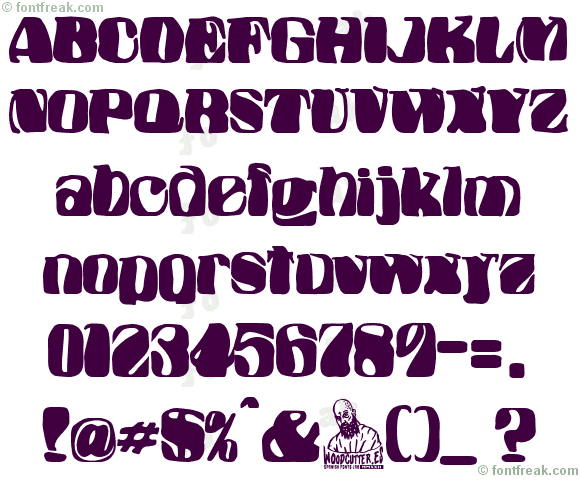
Coordenadas Polares
Coordenadas Polares is a captivating display font designed by woodcutter Manero, characterized by its unique blend of whimsy and boldness. This decorative font features an organic, hand-crafted aesthetic that sets it apart from traditional typefaces. Its playful letterforms are characterized by varying stroke weights, which add a sense of dynamism and movement. The rounded edges and uneven spacing give it a warm, approachable feel, making it ideal for creative projects that require a personal touch.
The font is versatile and can be effectively used in a variety of applications. It works beautifully for wedding invitations, where its charming design can evoke a sense of celebration and joy. Additionally, Coordenadas Polares shines in movie posters, providing an eye-catching title treatment that captures attention and conveys emotion. Restaurant menus also benefit from its distinctive style, offering a unique branding opportunity that reflects the establishment's character. Furthermore, this font is perfect for social media graphics, allowing content creators to stand out in a crowded digital landscape.
What truly makes Coordenadas Polares stand out is its ability to blend artistic flair with functionality. The font's playful nature can elevate any project, while its free download option ensures that it remains an attractive choice for those seeking creative solutions. Whether you are crafting an invitation, designing promotional materials, or enhancing your online presence, this font is a delightful addition to your typography toolkit.